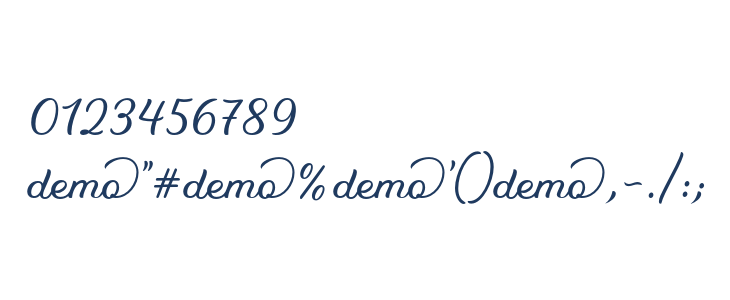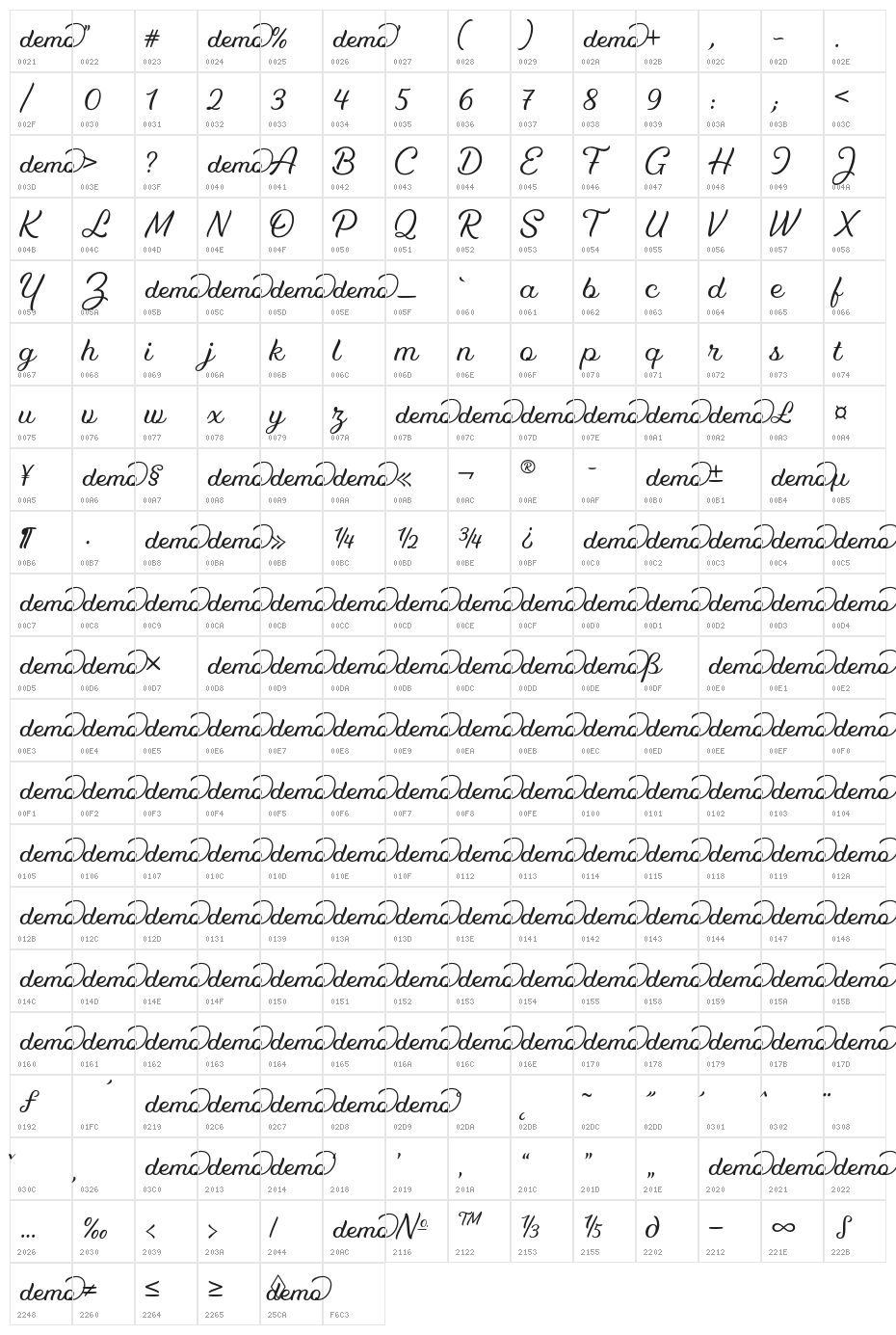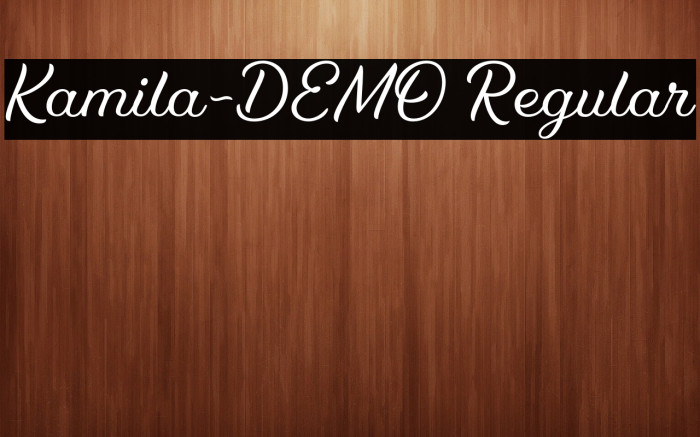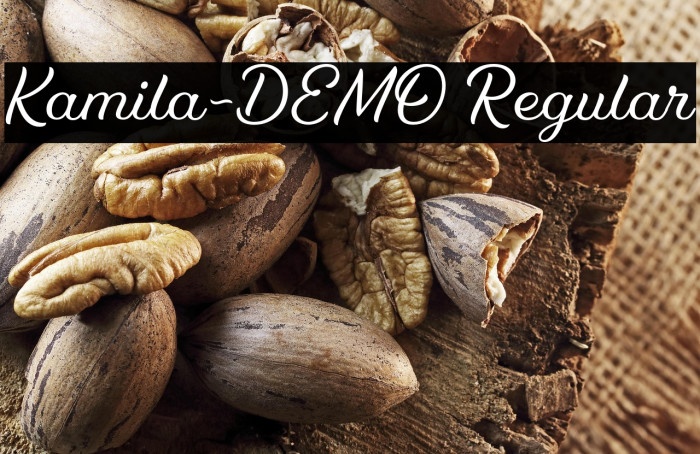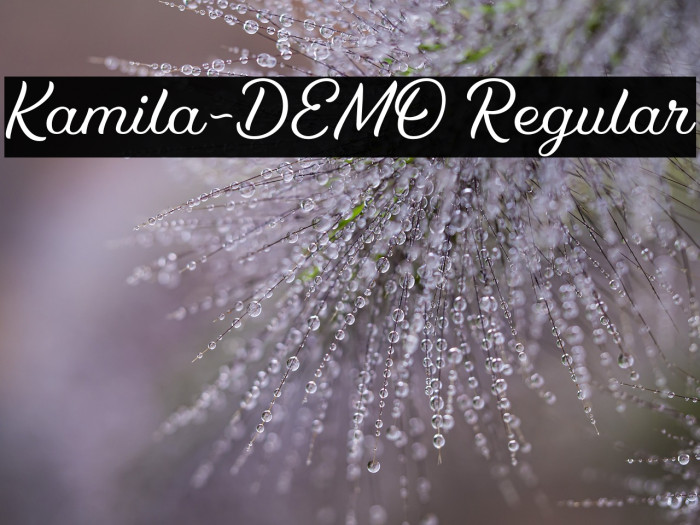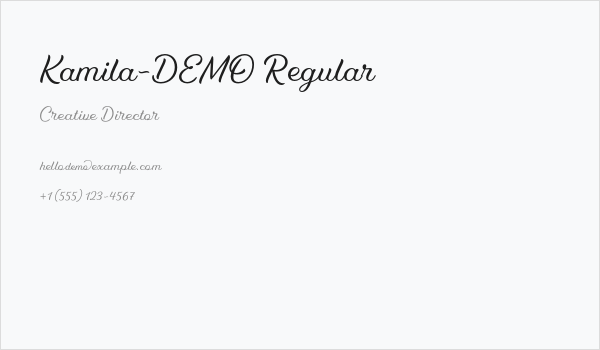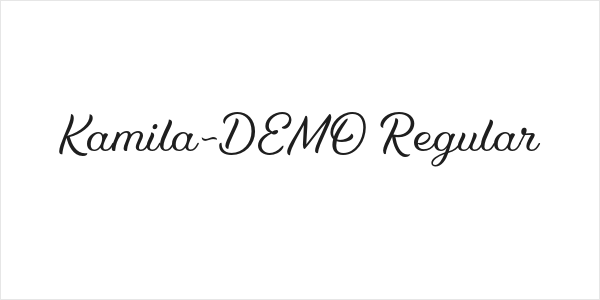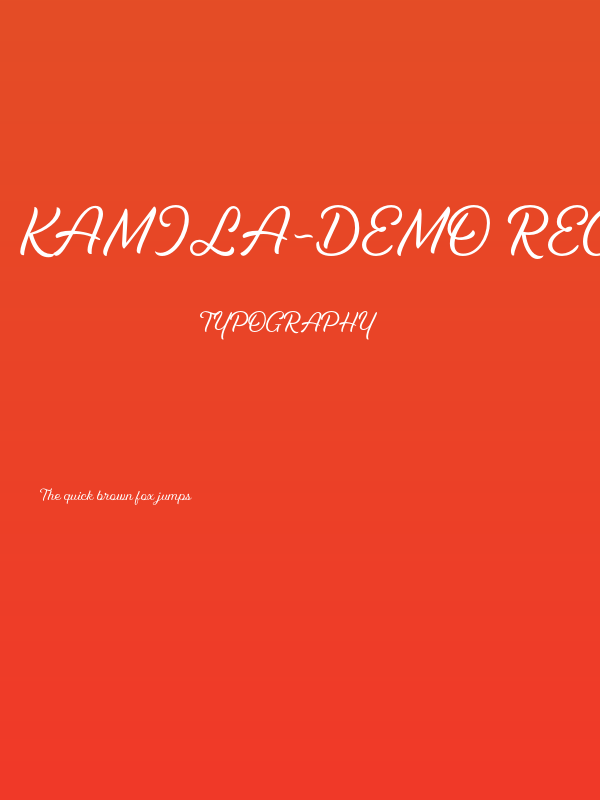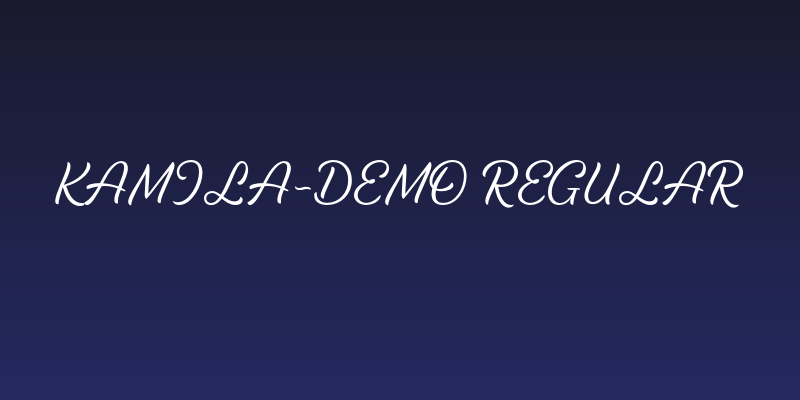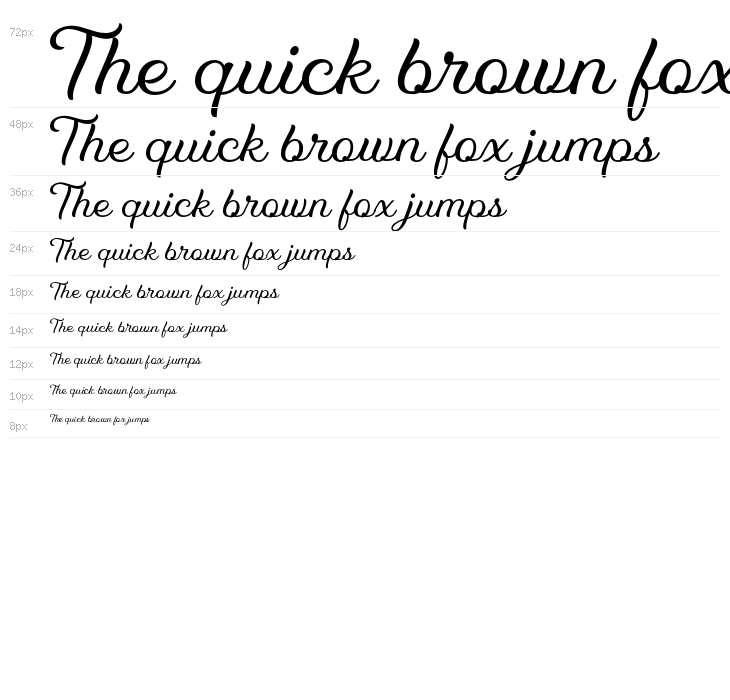
Kamila-DEMO Regular Font
Kamila-DEMO Regular Description
This font features an elegant and flowing script style, characterized by its smooth, cursive letterforms. The uppercase letters are slightly more ornate, with gentle curves and loops that add a touch of sophistication. The lowercase letters maintain a consistent flow, making it ideal for creating a harmonious and connected look. The numerals are clear and easy to read, complementing the overall style. Special characters are designed to blend seamlessly with the alphabet, enhancing the font's versatility. This font exudes a sense of grace and fluidity, making it suitable for a variety of creative applications.
Overall StyleElegant
Use CaseLogos, Invitations, Decorative text
Proposed ProjectsIdeal for wedding invitations, greeting cards, branding, and elegant signage.